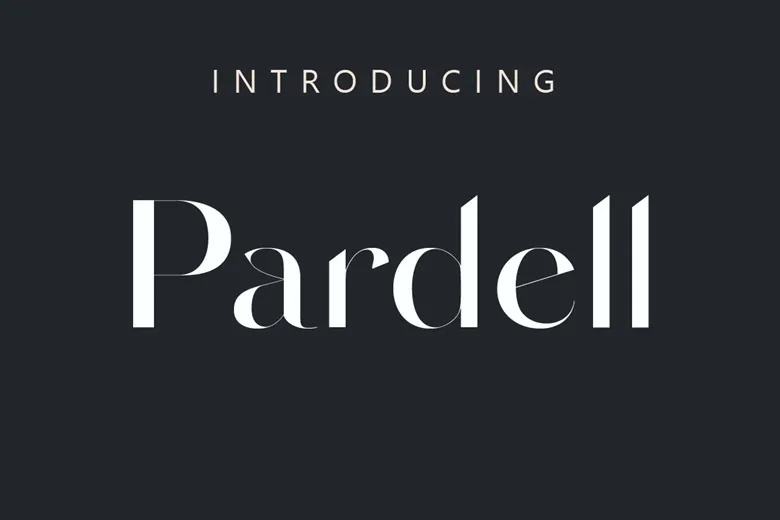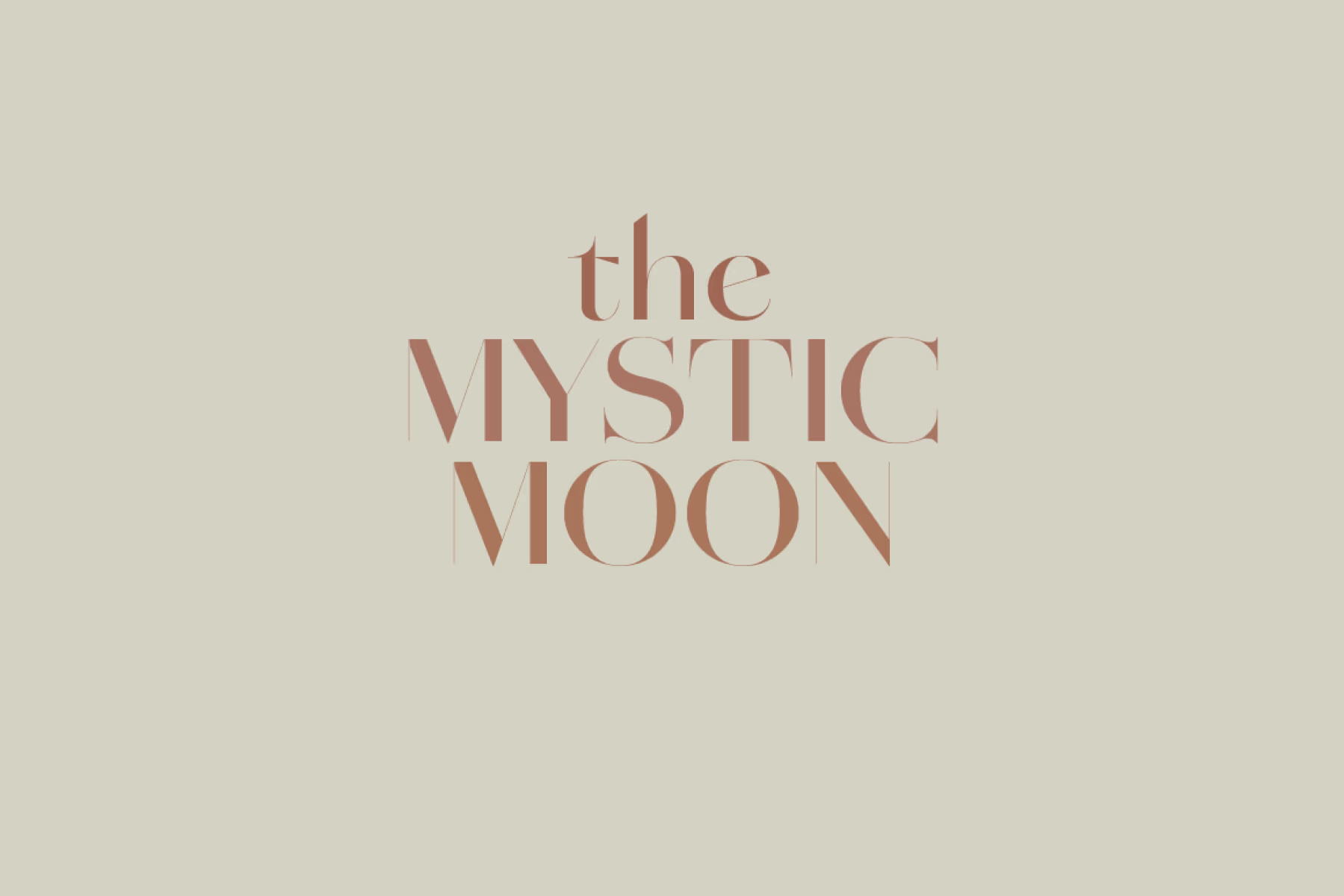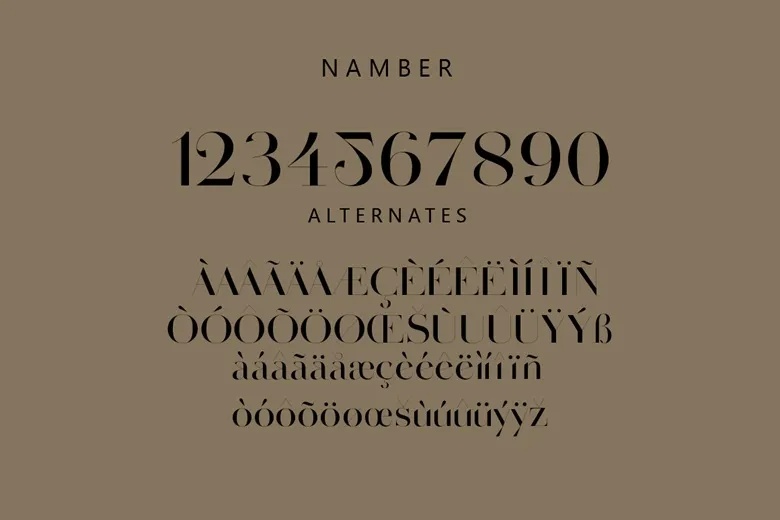
Pardell Font
Pardell is a sleek and stylish sans serif typeface designed by Metafontsy, available for free download for personal use. The free version includes both uppercase and lowercase letters, along with a selection of special characters.
With its clean lines and contemporary elegance, Pardell is ideal for chic branding, fashion-forward design, and editorial layouts. Whether featured in magazine headlines, logos, or creative projects, each letter of Pardell carries a subtle sense of sophistication and modern flair.